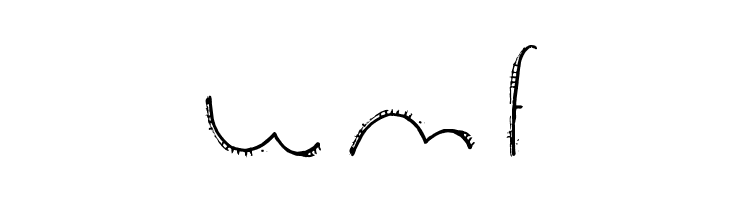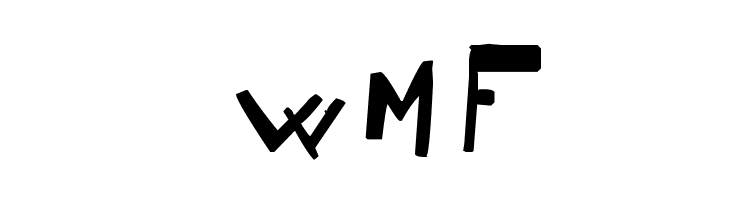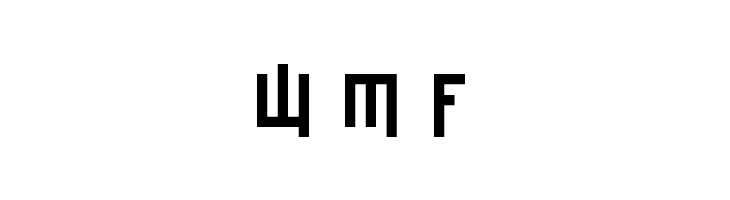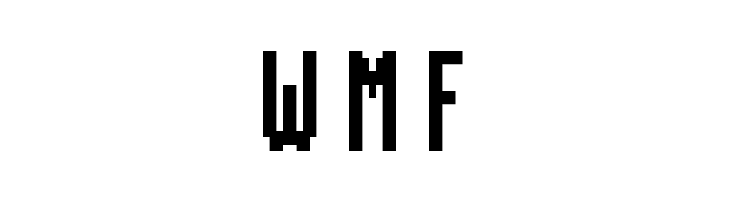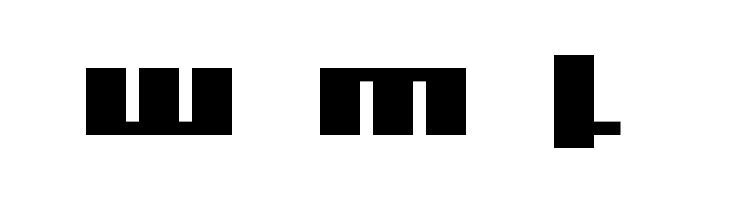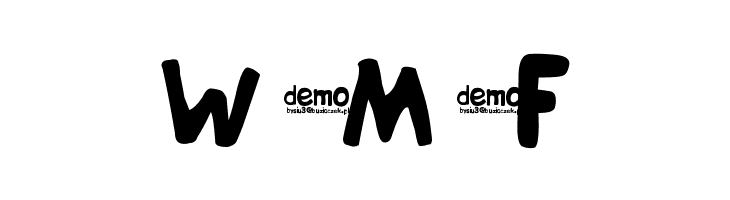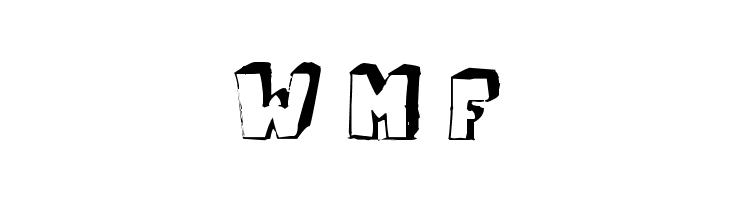
A bold, playful font with chunky, exaggerated letterforms.
A bold, glitch-style font with a digital distortion effect.
A textured, particle-like font with a dynamic and artistic style.
A geometric, pixelated font with a futuristic, tech-inspired design.
An elegant and flowing script font with high contrast and graceful swashes.
A bold, geometric font with clean lines and a modern appearance.
A bold, angular font with a dynamic, modern style.
A bold, angular font with dramatic curves and sharp edges, perfect for impactful designs.
A playful, bold font with a donut-like, three-dimensional appearance.
A playful, handwritten font with a casual and informal style.
A playful sans-serif font with decorative dots on each character.
A playful, hand-drawn font with a stick-like, sketchy appearance.
A bold, dotted font with a playful and artistic style.
A bold, cursive font with dynamic, interconnected letters.
A playful 3D outline font with a bold, cartoonish style.
A playful 3D outline font with bold, rounded characters and a dynamic shadow effect.
A bold, hand-drawn font with a playful, sketched appearance.
A dynamic, fluid script font with a handwritten, casual style.
A dynamic, hand-drawn font with artistic and expressive strokes.
A playful and casual handwritten font with bold, slightly slanted characters.
A bold, italic handwritten font with a dynamic and playful style.
A dynamic, handwritten-style italic font with smooth, medium-thick strokes.
A modern, cursive font with elegant, flowing connections and playful sophistication.